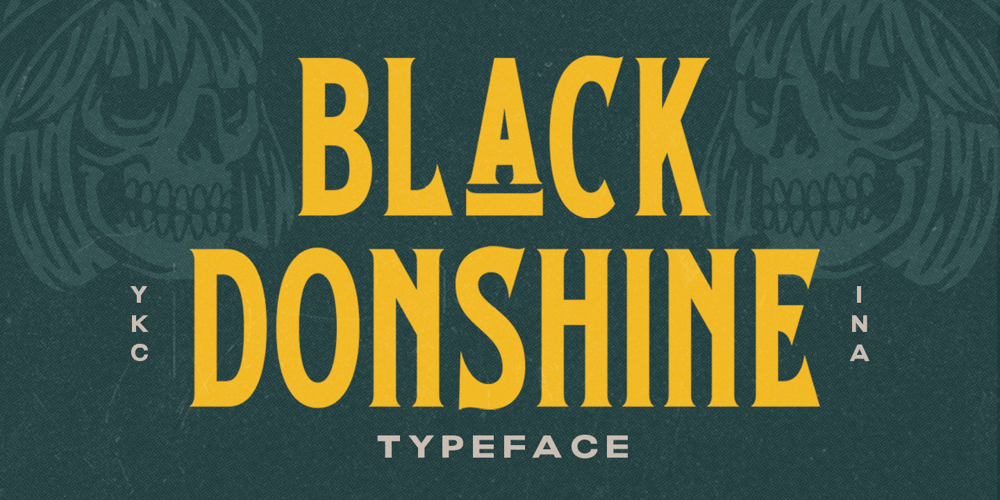
Black Donshine Font Family was designed by Hendry Juanda and published by Letterhend. Black Donshine contains 1 styles and family package options. Black Donshine is a display typeface that demands attention with its bold in vintage looks. The sharp hooks and strong lines create a sense of toughness. This font is perfect for designs that require a bold and modern look, such as logos, posters, and advertisements such as invitations, labels, logos, magazines, books, greeting / wedding cards, packaging, fashion, make up, stationery, novels, labels or any type of advertising purpose.Features :- Uppercase & lowercase- Numbers and punctuation- Alternates & Ligatures – Multilingual- PUA encodedWe highly recommend using a program that supports OpenType features and Glyphs panels like many of Adobe apps and Corel Draw, so you can see and access all Glyph variations.